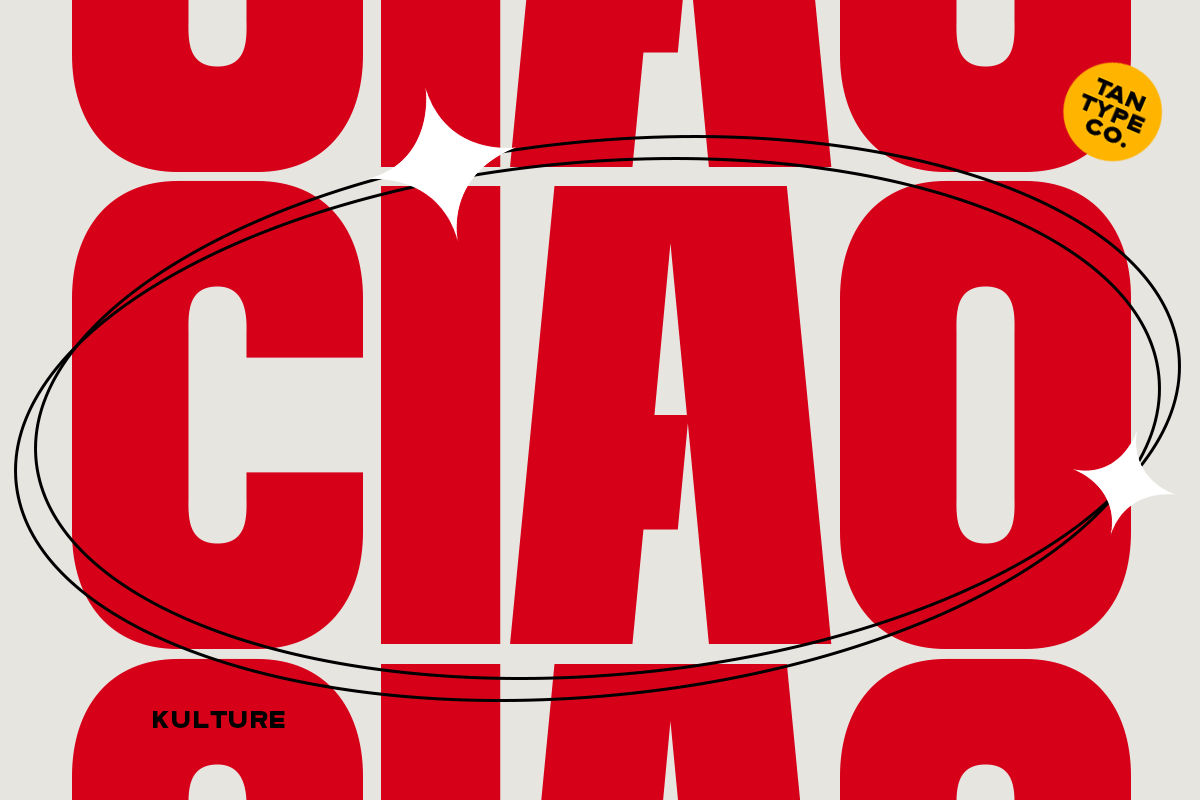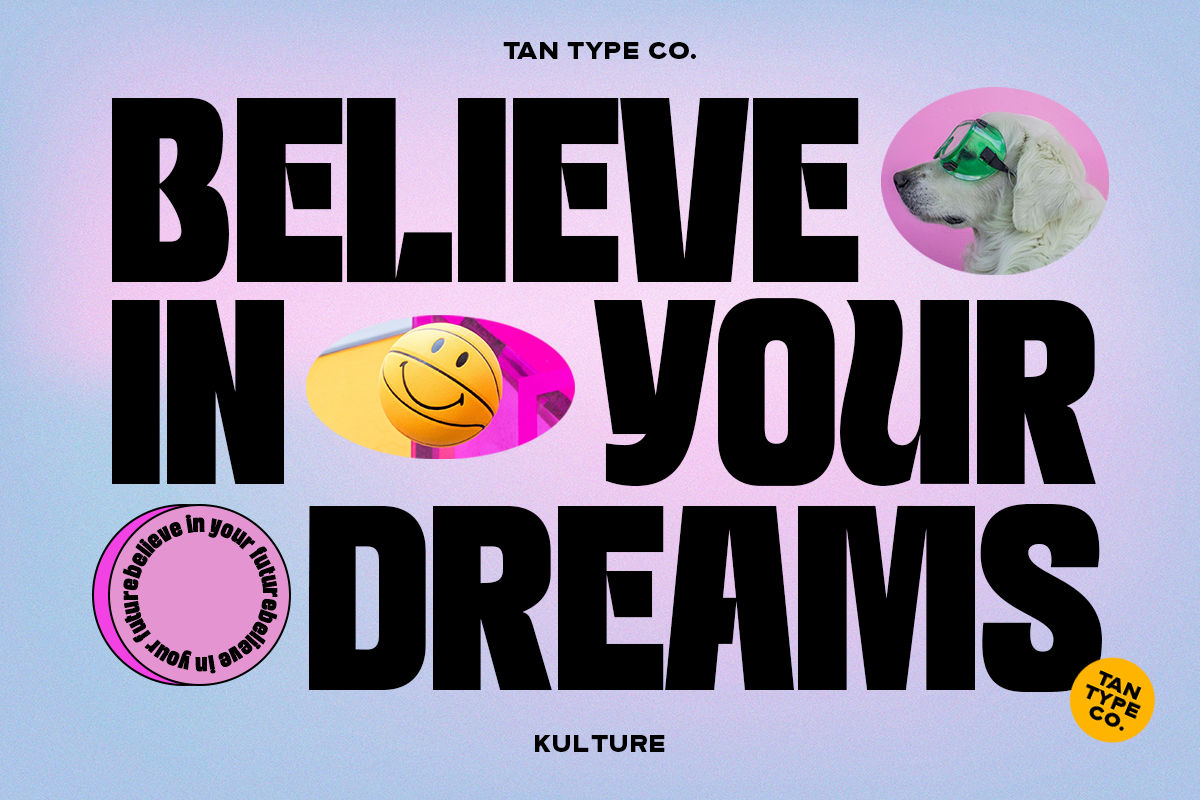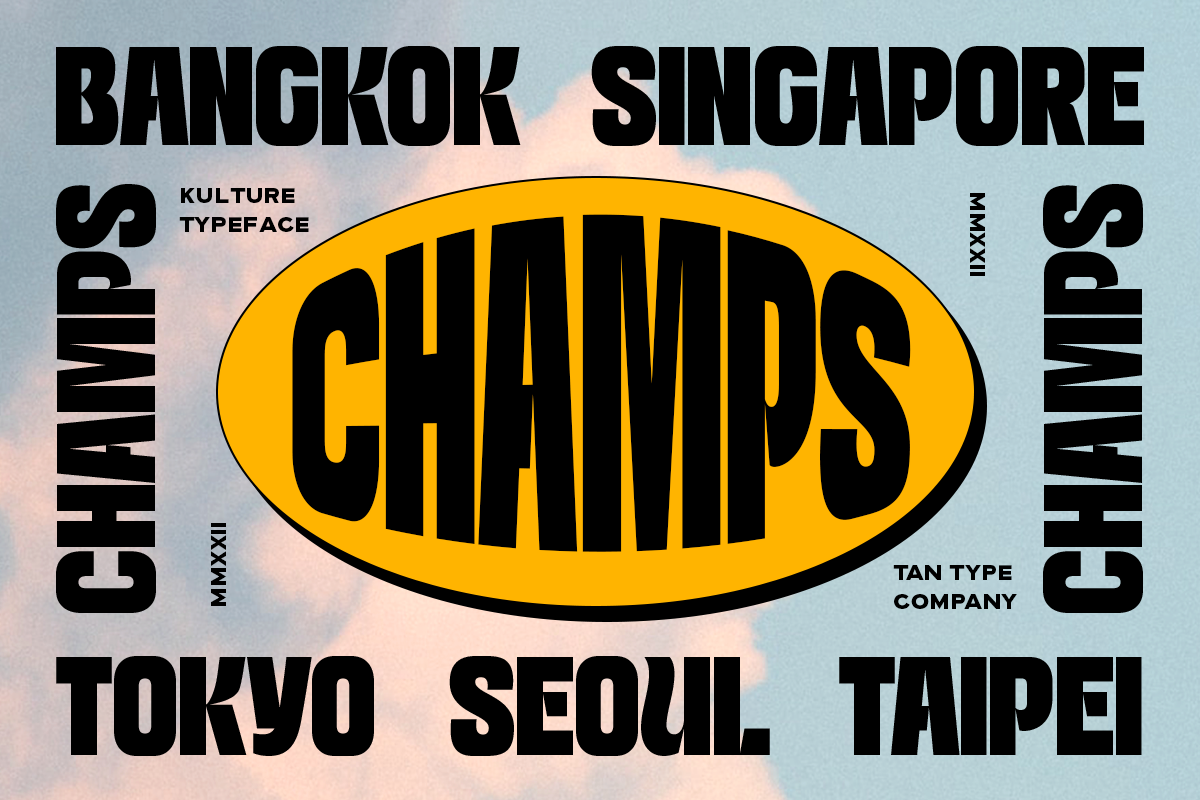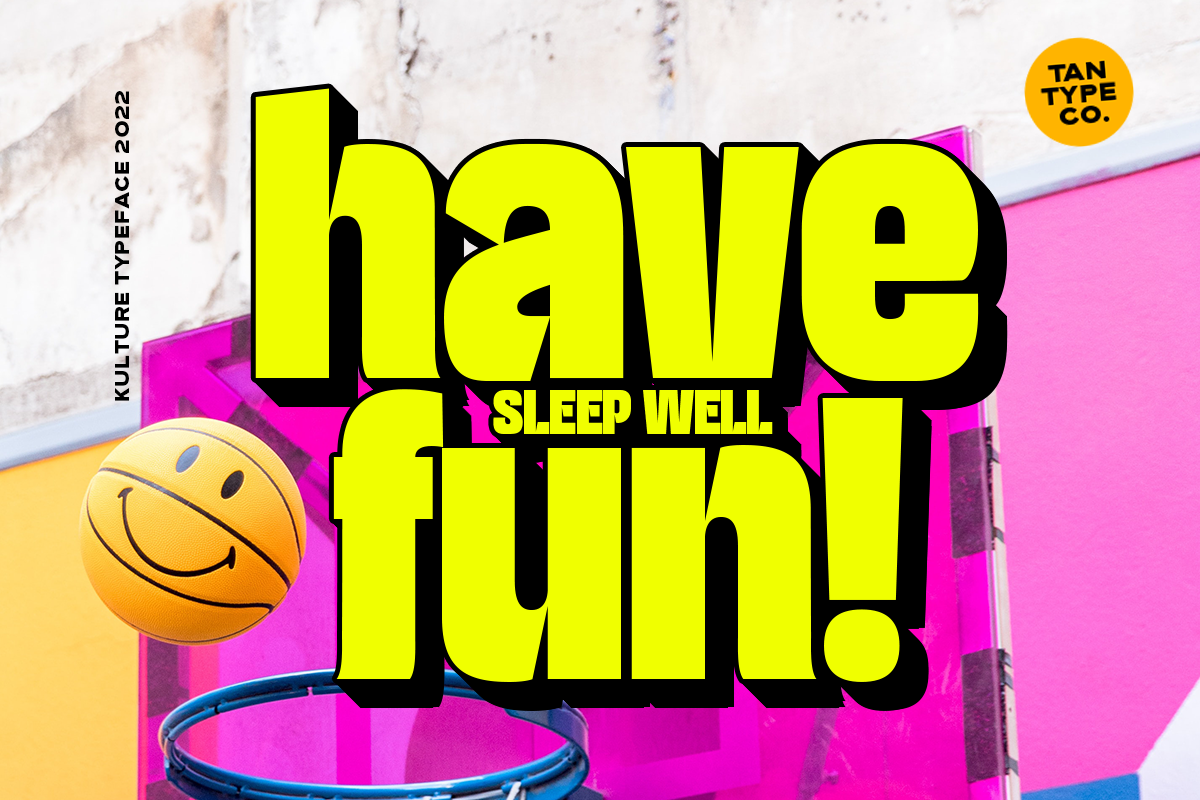
Tan Kulture is a bold display typeface. Simple in a good way and efficient with tight kernings making it a nice choice if you want a retro look in your design. Multilingual support. It’s perfect for sports graphics, posters, editorial titles and headlines.